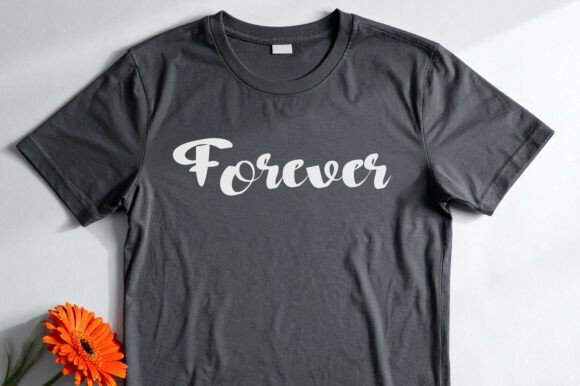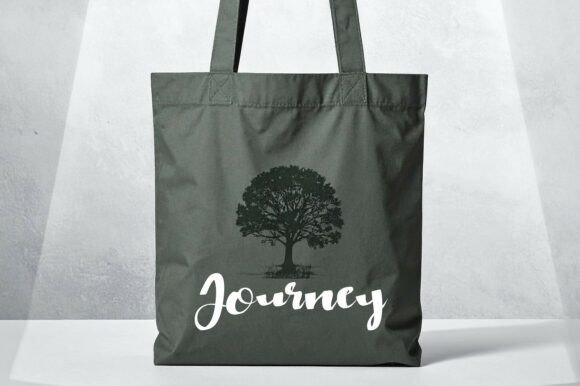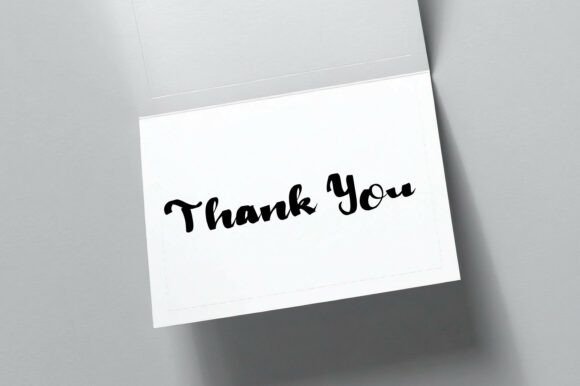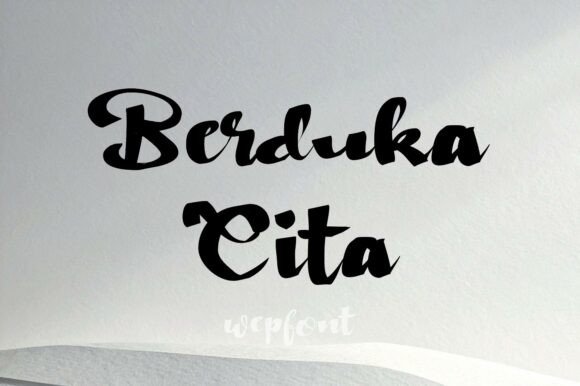
Venture into the Realm of Berduka Cita: A Font that Embodies Warmth and Elegance
In the world of typography, few fonts manage to strike a balance between classic elegance and modern readability. However, “Berduka Cita” is an exceptional script font that effortlessly merges the allure of traditional script with a contemporary design. This illustrious font is teeming with genuine warmth, making it perfect for a wide range of creative projects that require a touch of sophistication and emotional depth.
The Characteristics of Berduka Cita
One of the standout features of “Berduka Cita” is its steadfast yet fluid strokes. This unique combination creates an impactful equilibrium that makes the font suitable for both passionately emotive and formal settings. Whether you’re designing memorial cards, inspirational quotes, or expressions of gratitude, “Berduka Cita” brings a level of sophistication and warmth that is hard to achieve with other fonts.
A Font for Multipurpose Uses
“Berduka Cita” comes with a range of standard punctuation glyphs, making it a versatile font for multipurpose uses. Designers can use this font to create a wide range of materials, from personalized merchandise such as tees and tote bags to more formal designs like certificates and invitations. The font’s flexibility and elegance make it an excellent choice for any project that requires a touch of class and emotional depth.
Bringing Heartfelt Depth to Your Designs
“Berduka Cita” has a unique ability to breathe life into pieces that yearn for heartfelt depth. Its sophisticated charm elevates designs, making them more impactful and memorable. For instance, when used in memorial cards, the font adds a level of warmth and compassion that is essential for creating a meaningful and comforting tribute. Similarly, when used in inspirational quotes or expressions of gratitude, “Berduka Cita” adds a touch of elegance and sincerity that resonates with readers.
“Berduka Cita” is not only a beautiful font but also easy to work with. It melds perfectly with prime design software, equipping designers to craft a story imbued with class and deep-felt emotions smoothly. This makes it an excellent choice for designers and crafters who want to create stunning designs without compromising on quality or emotional impact.
The possibilities are endless when working with “Berduka Cita.” Designers can use this font to create a wide range of materials, including:
- Memorial cards and funeral programs
- Inspirational quotes and posters
- Expressions of gratitude and thank-you cards
- Personalized merchandise such as tees, tote bags, and mugs
- Certificates and formal invitations
“Berduka Cita” is an exceptional script font that embodies warmth, elegance, and sophistication. Its unique characteristics make it perfect for a wide range of creative projects that require a touch of class and emotional depth. With its versatility, flexibility, and ease of use, “Berduka Cita” is an excellent choice for designers and crafters who want to create stunning designs that resonate with their audience. Venture into the realm of “Berduka Cita” and discover the endless creative possibilities that this beautiful font has to offer.